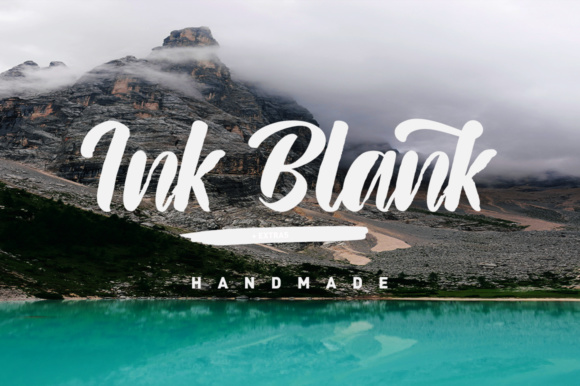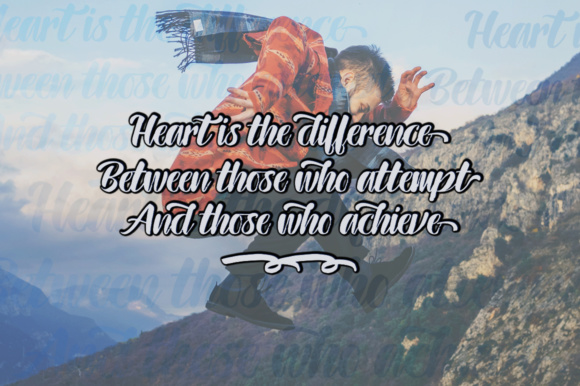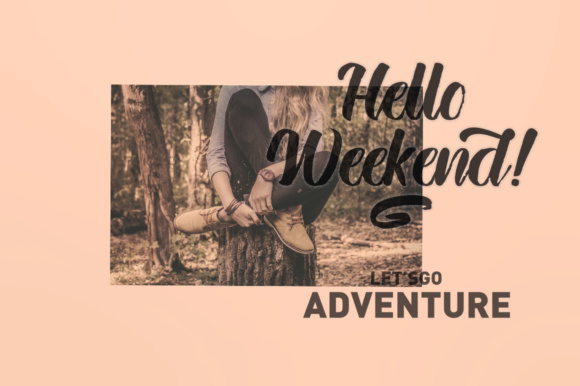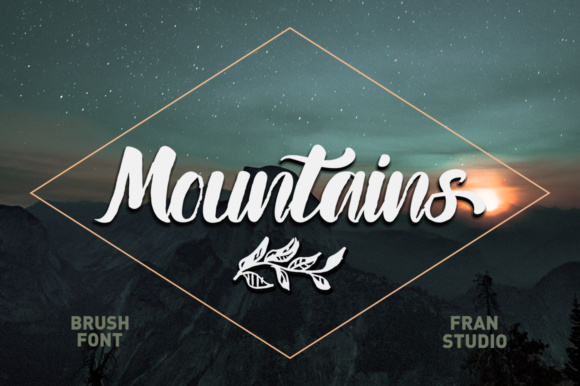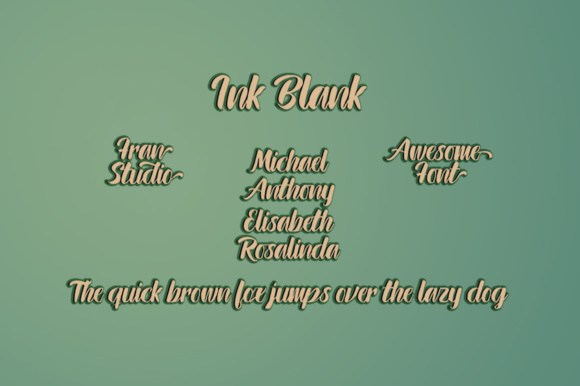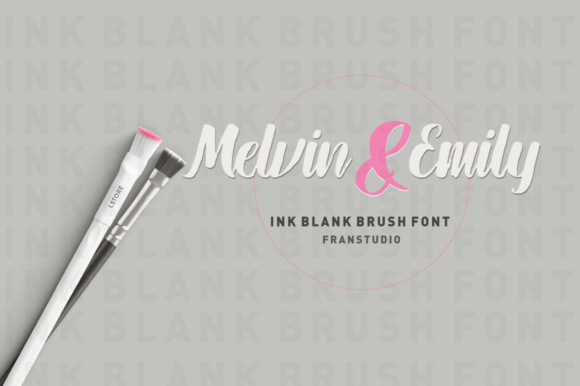
Ink Blank Font
About Ink Blank Font
The Ink Blank Brush is a modern calligraphy font with smooth lines and a varying baseline. It will give your design a classic and elegant touch. Ink Blank can be used for various purposes such as: headings, signatures, logos, wedding invitations, and much more!